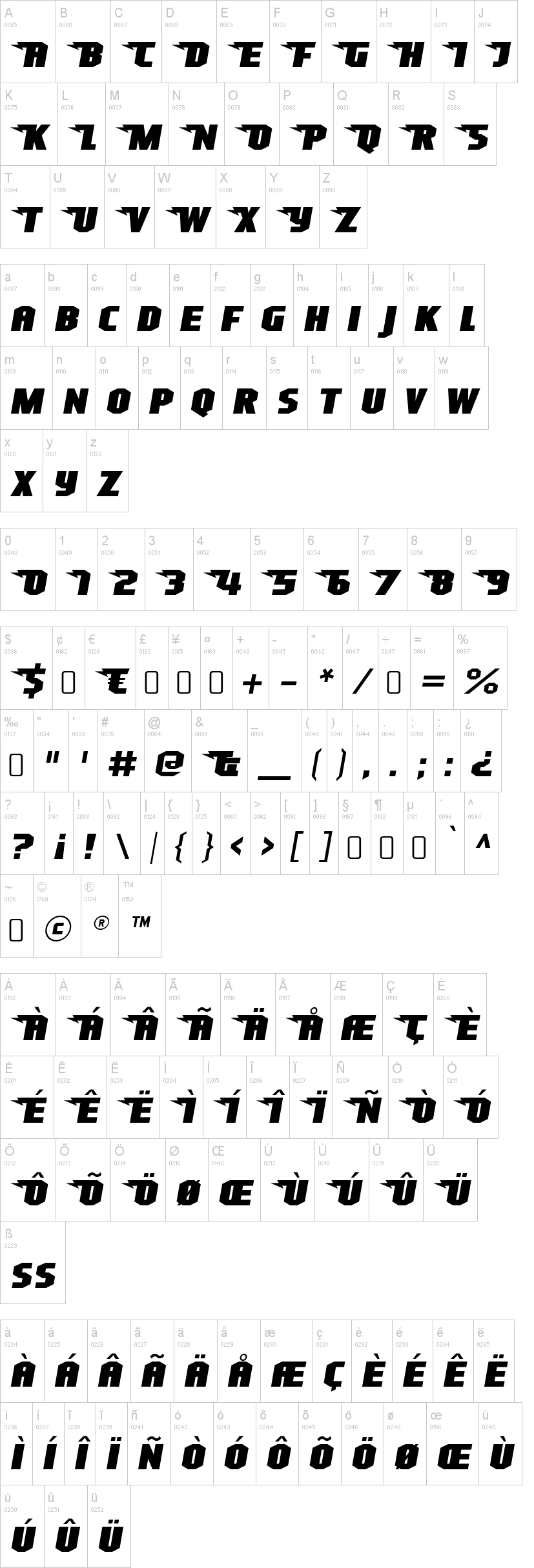
Шрифт Superheterodyne
Superheterodyne is an octagonal slanted industrial font with lightning swashes. Don't forget to read the files inside the zip for details.